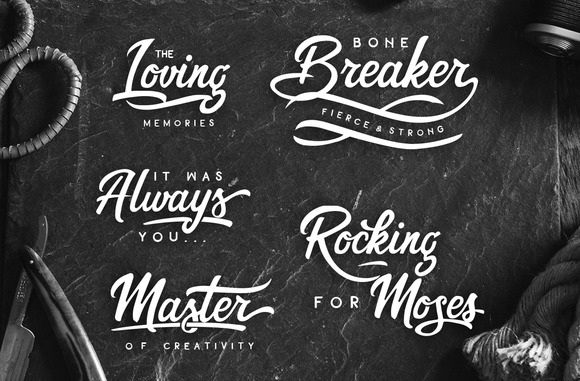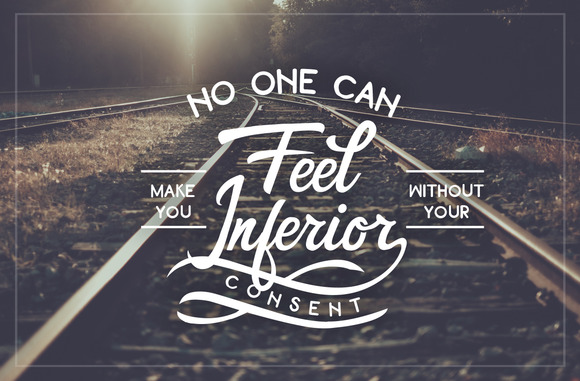
The Trickster Font
db-ku.com - Script & Handwritten -- The Trickster is a stunning detailed font duo that comes in 2 versions. One stunning font with beautiful swashes and swooshes and a regular version.